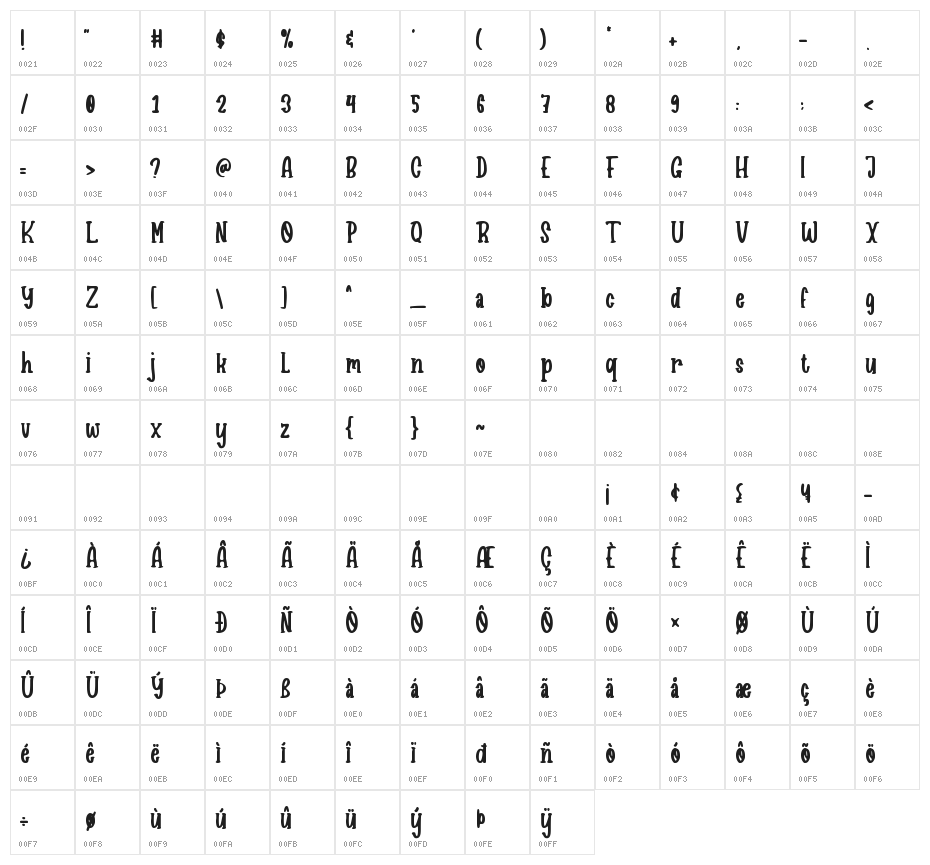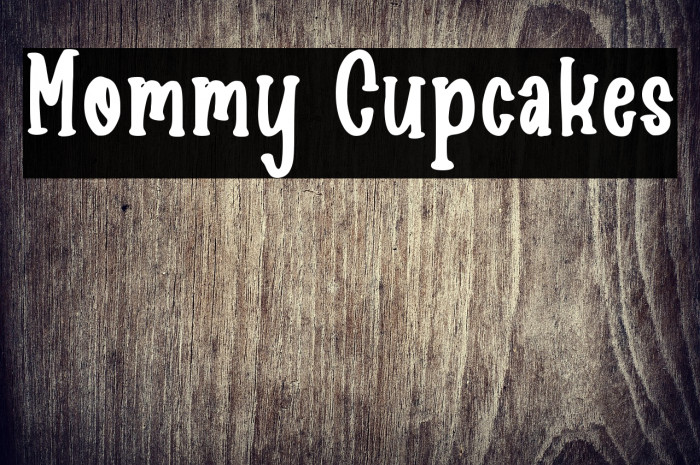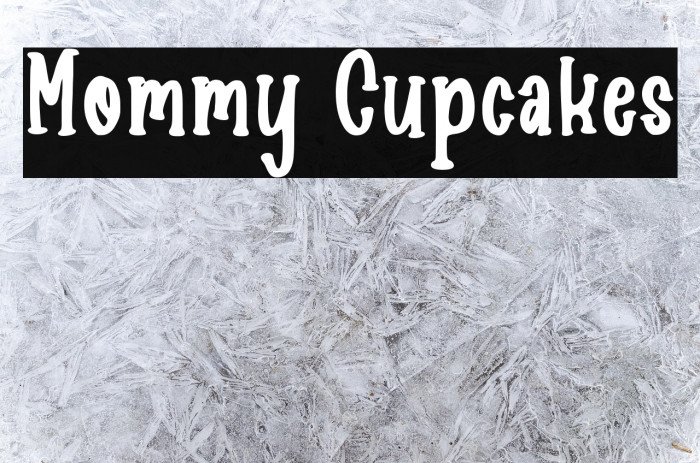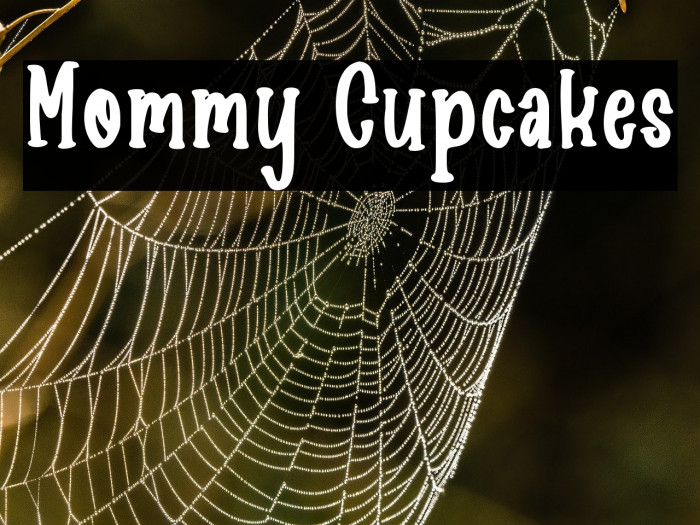
Mommy Cupcakes Font
Mommy Cupcakes Description
This playful and whimsical font features a bold and rounded style with a touch of vintage charm. The letters have a hand-drawn appearance, with slightly irregular strokes that add to its friendly and approachable feel. The uppercase and lowercase characters maintain a consistent style, with the uppercase letters being slightly taller and more pronounced. The numbers and special characters follow the same design principles, ensuring a cohesive look across all elements. This font is perfect for projects that require a fun and inviting aesthetic.
| Overall Style | Playful, Vintage |
| Proposed Projects | Ideal for children's books, playful branding, party invitations, and craft projects. |